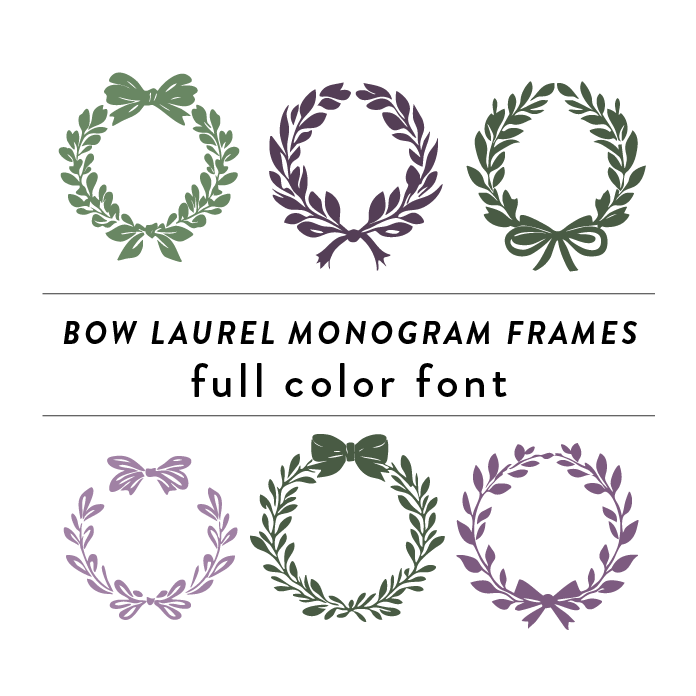
Bow Laurel Wreaths Full Color Font is a decorative dingbat font featuring intricate designs of laurel wreaths in vibrant colors. The font includes various tree branches, leaves, and curved line shapes, adding a whimsical and elegant touch to any project. Perfect for invitations, cards, and other design projects that require a touch of nature and sophistication. This font is a OTF craft font that will appear in color only when used with the silhouette software.